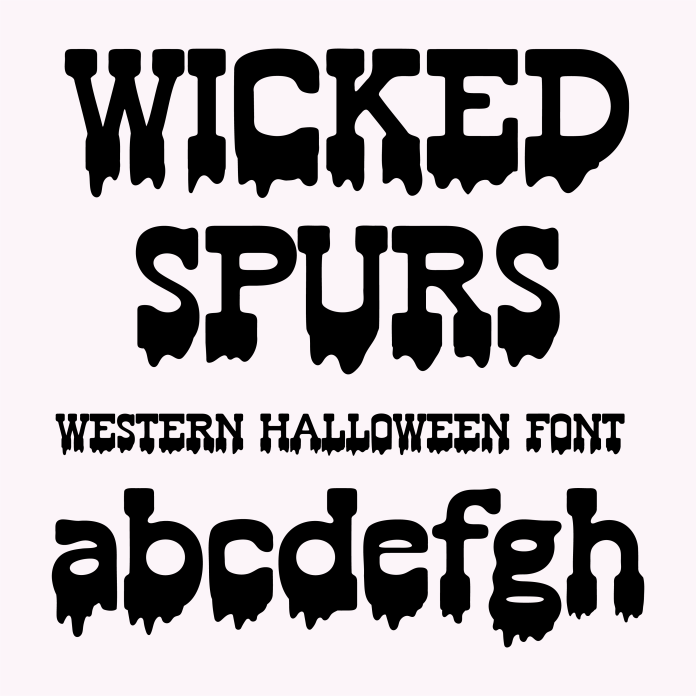
BFC Wicked Spurs Western Halloween Serif Font is a spooky and playful font perfect for Halloween and Autumn-themed designs. With sharp serifs and a Western-inspired style, it adds a touch of mystery and fun to any project. Use it for invitations, posters, or social media graphics to bring a festive and eerie vibe to your designs.